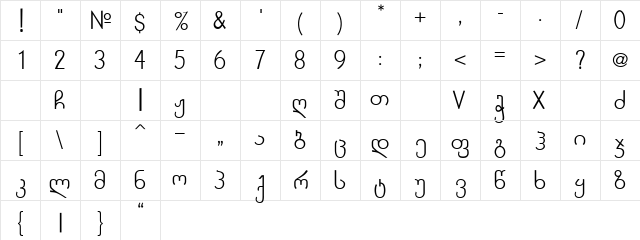
Phatima Regular
Design Context for Phatima Typeface
Phatima is a composed and adaptable typeface that performs quietly and consistently across a wide range of design contexts.